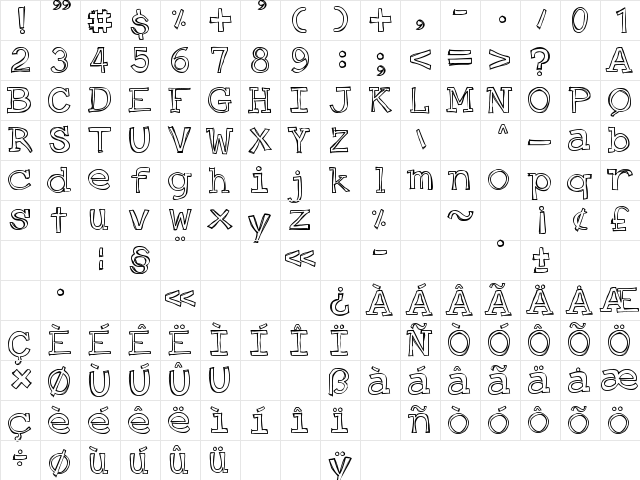
DJB Just an Outty Regular Free Font
DJB Just an Outty Regular
Designer: Darcy Baldwin (djbfontography)
Design Context for DJB Just an Outty
DJB Just an Outty is a composed and adaptable typeface that performs quietly and consistently across a wide range of design contexts.